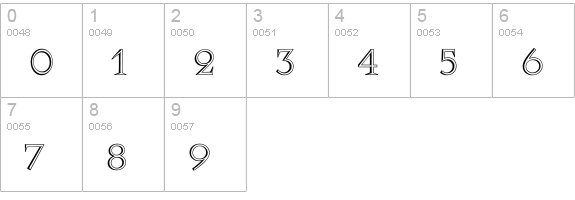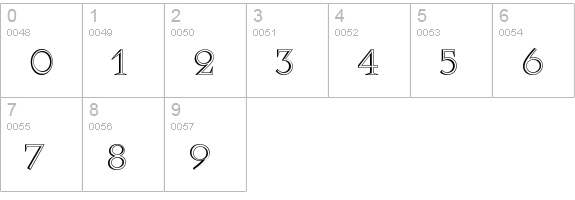
Augustea Open Font Details
Augustea Open is a stunning and elegant font that exudes sophistication and grace. With its delicate lines and elaborate details, this typeface is perfect for adding a touch of refinement to any design project. The open style of Augustea Open gives it a unique and airy appearance, making it stand out from other fonts. What's even better is that Augustea Open is completely free to download! You can easily access this beautiful font at FontsMarket.com and enhance your projects with its timeless beauty. Whether you're working on invitations, logos, or any other creative endeavor, Augustea Open is sure to make a lasting impression. Download it today and elevate your designs with this exquisite typeface.